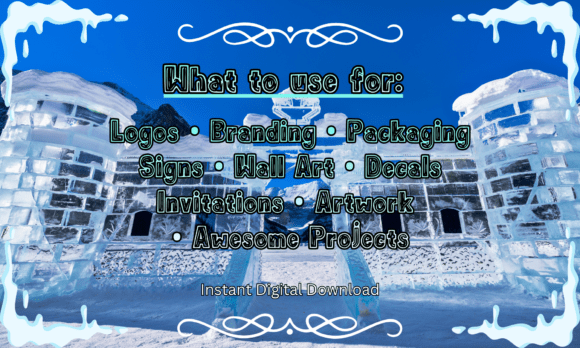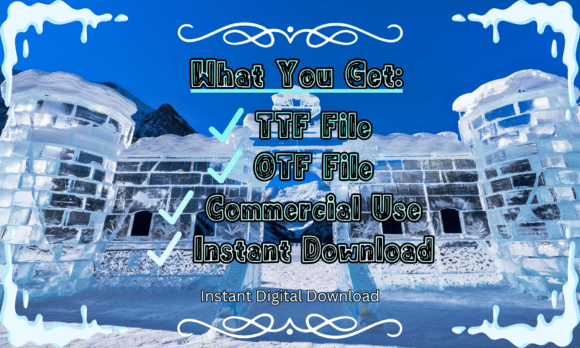
Bring the Chill of Winter to Your Designs
There’s something magical about a snowy winter morning, the way the frosty air sparkles and the sound of snowflakes gently falling. It’s moments like these that inspire our creativity and spark new ideas. As a designer, you’re always on the lookout for the perfect font to capture the essence of the season, and that’s where Ice Sculpture Font comes in – a frosty display font that brings the magic of winter to your creative projects.
With its bold, frozen lettering and chilled line details, Ice Sculpture Font is the perfect addition to any winter-themed branding, holiday crafts, invitations, or gaming graphics. Whether you’re designing for Christmas, snow-themed projects, or fantasy winter artwork, this font adds a crisp, cool touch that instantly stands out. As a designer, you’ll appreciate the value of this versatile font, which is compatible with a range of software, including Cricut Design Space, Adobe Illustrator, and more.
Ice Sculpture Font Key Features
- Unique Characteristics: Features intricate ice crystal-inspired designs, perfect for winter-themed projects
Ice Sculpture Font Review
Overall, I’d say that “Ice Sculpture Font” is a beautiful and elegant font that can add a touch of sophistication to any design project. ✨ Its unique, hand-crafted feel makes it perfect for luxury brands, high-end fashion labels, or any other project that requires a sense of refinement.
- ✨ Unique, hand-crafted feel that adds a touch of sophistication to any design project
- ✨ Elegant and refined, making it perfect for luxury brands and high-end fashion labels
- ✨ Highly customizable, allowing designers to fine-tune the font to fit their specific needs
However, there are a few limitations that I’ve noticed:
- ⚠️ Limited font sizes and styles available, which may limit its versatility in certain projects
- ⚠️ Can be quite difficult to read in certain contexts, such as on smaller screens or in low-light conditions
Overall, I think “Ice Sculpture Font” is a great choice for designers who are looking to add a touch of elegance and sophistication to their projects. While it may have some limitations, its unique feel and highly customizable nature make it a valuable asset in any designer’s toolkit.
Ice Sculpture Font: A Practical Application Guide
The Ice Sculpture Font is ideal for creating a winter or festive theme. Use it for designing holiday cards, invitations, or social media graphics. To get the most out of it, experiment with different font sizes, colors, and combinations to achieve a unique and eye-catching design.